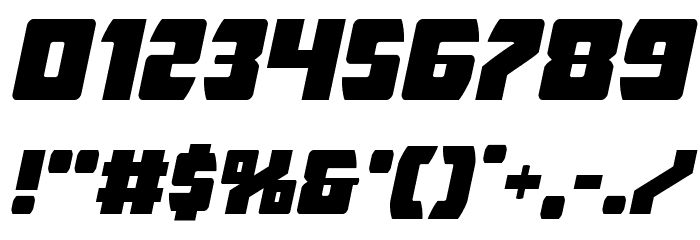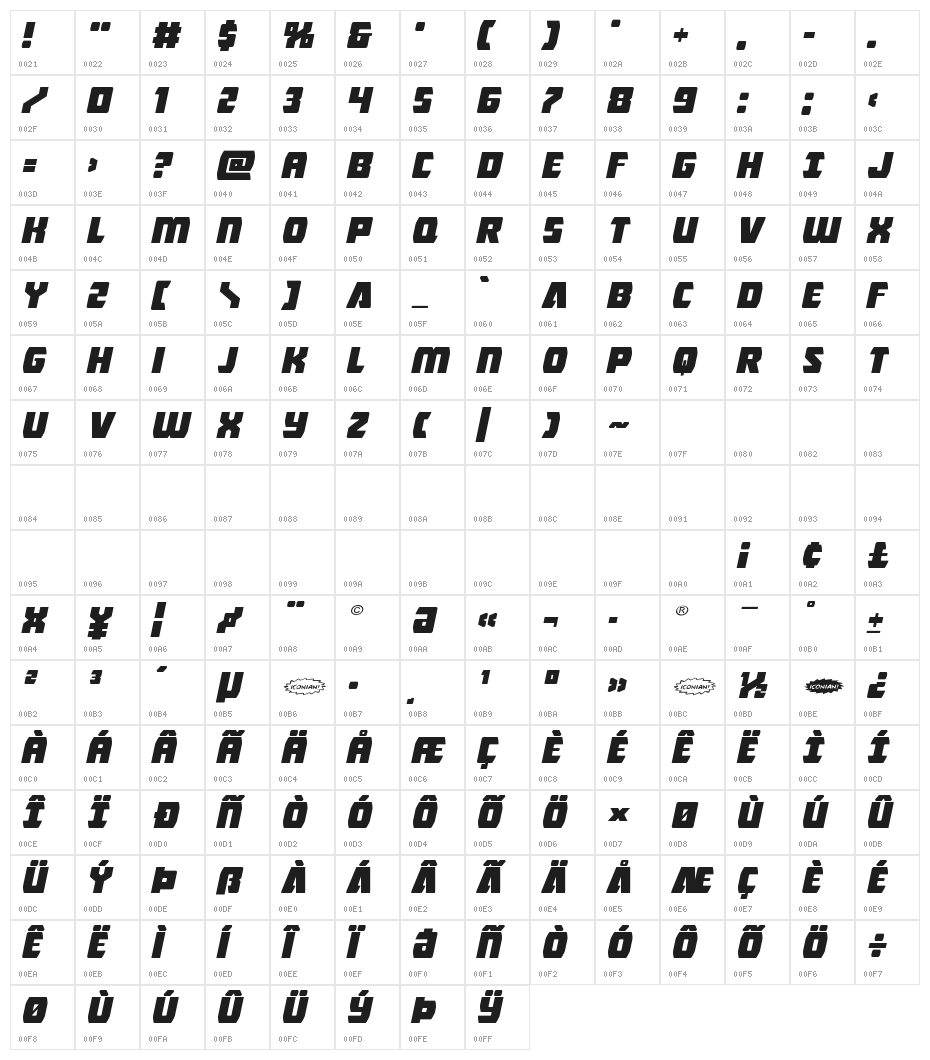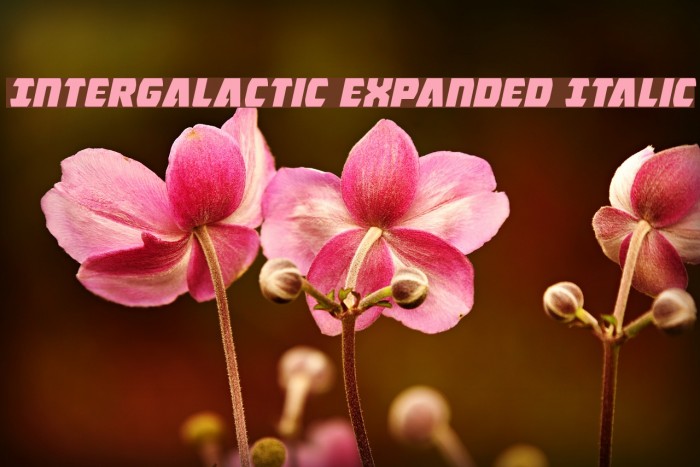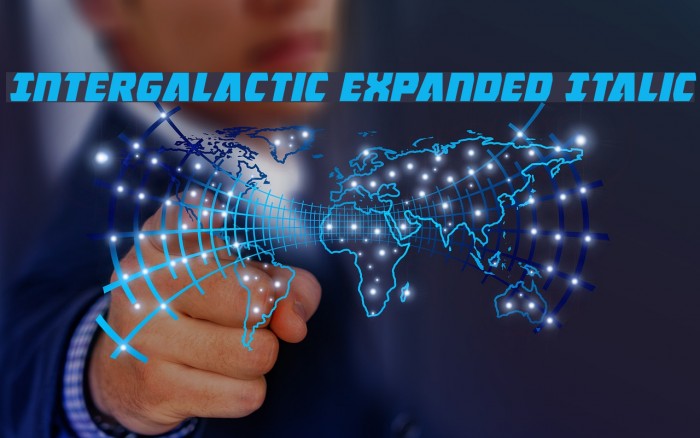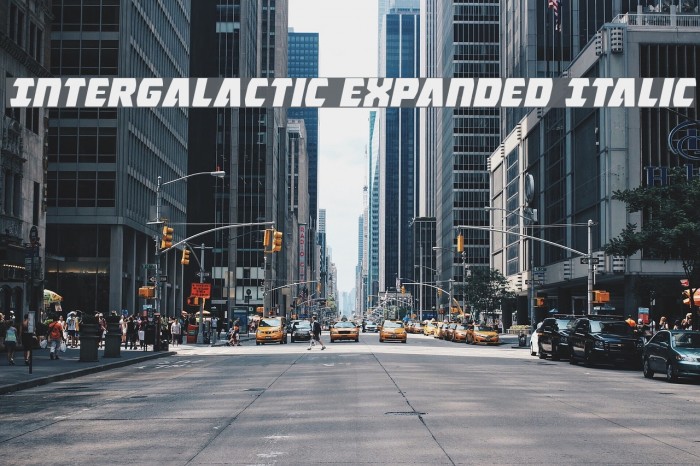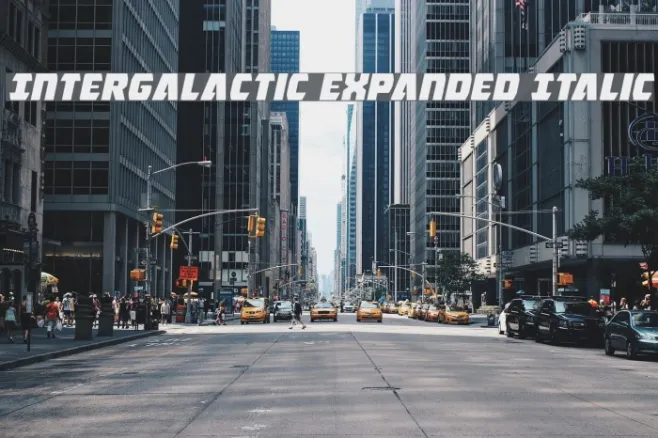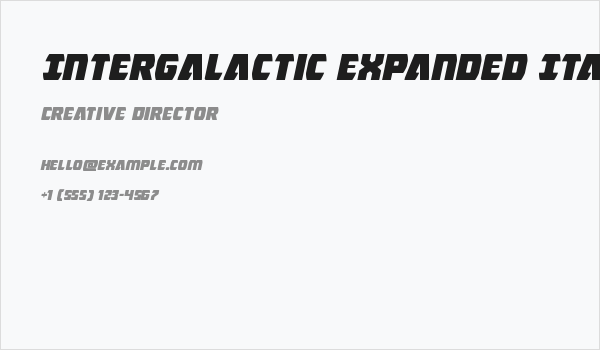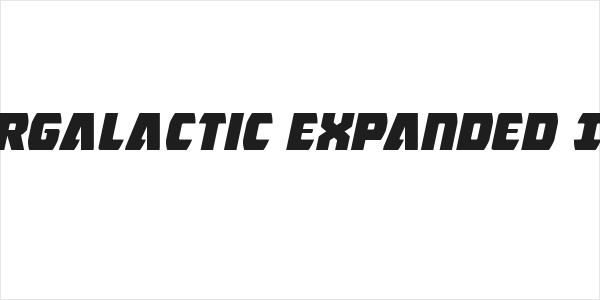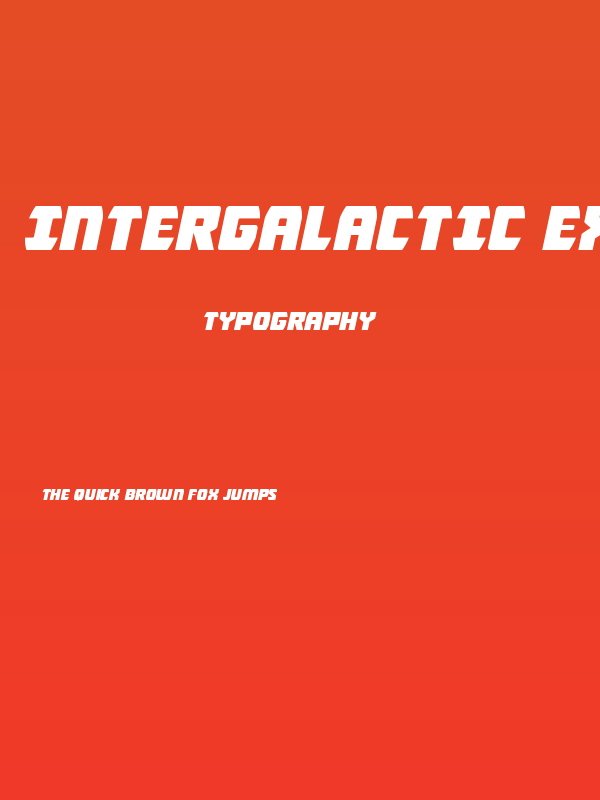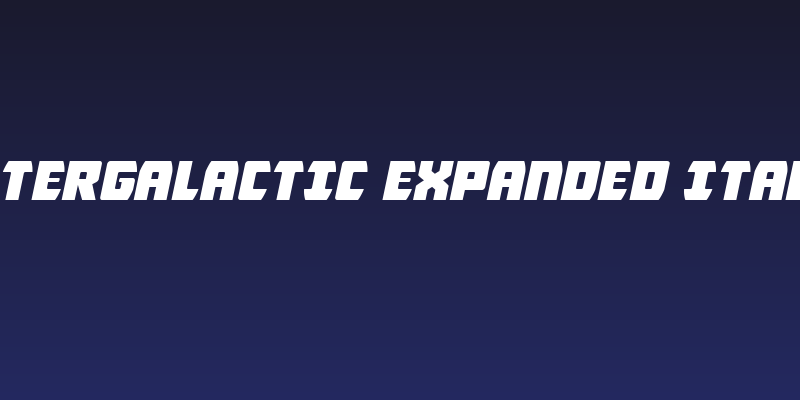
Intergalactic Expanded Italic Font
Intergalactic Expanded Italic Description
This font features a bold and dynamic style with an expanded width and italic slant, giving it a futuristic and energetic appearance. The characters are robust and angular, with a strong presence that commands attention. The uppercase and lowercase letters maintain a consistent design, ensuring readability while adding a unique flair. The numbers and special characters are equally bold, complementing the overall aesthetic. This font is ideal for projects that require a modern and impactful look, such as technology branding, sci-fi themes, or sports-related designs.
| Proposed Projects | Ideal for technology branding, sci-fi themes, sports-related designs, and modern advertising. |